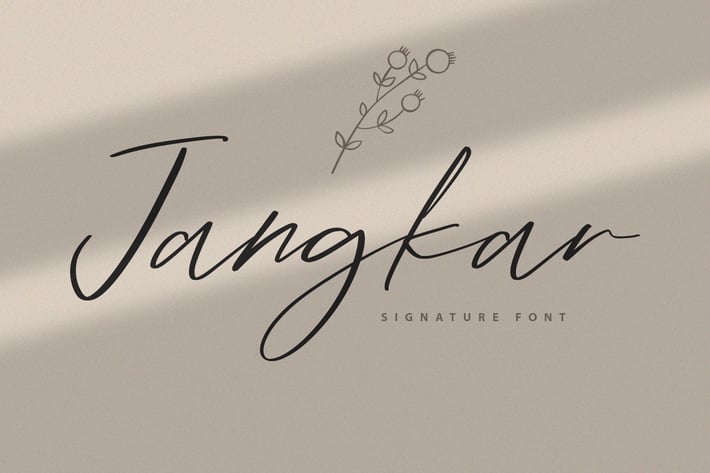
Jangkar Signature Font
Introducing Jangkar Signature Font. It comes with an elegant and feminine style which is perfect to make any design stand out! This font is perfect for branding, wedding invites, magazines, mugs, business cards, quotes, posters, and more.
Jangkar Type Features:
- Numerals & Punctuations
- Suitable for Headlines, Logotypes, Signs, Posters, Letterhead, T-Shirt and many more.